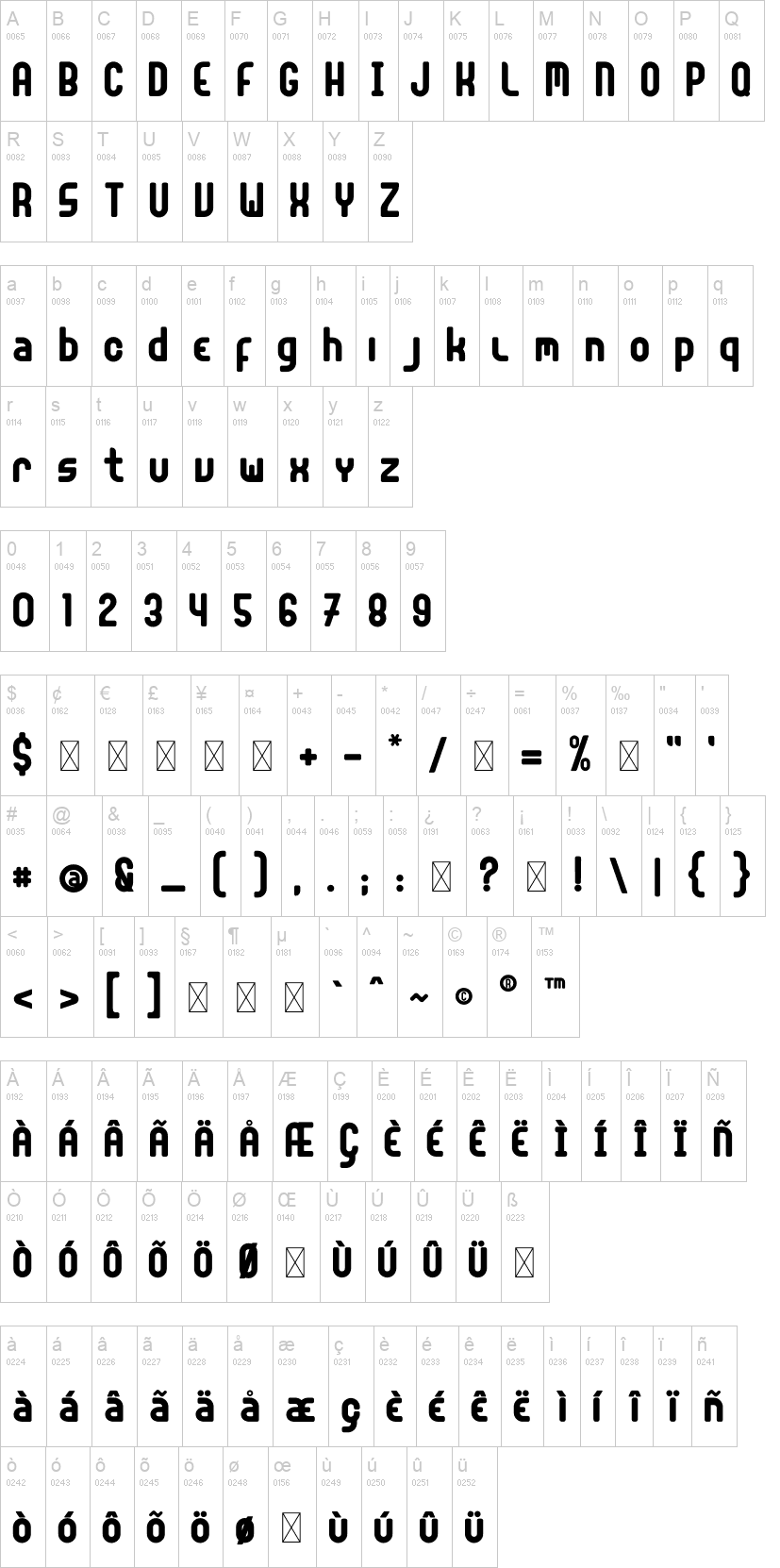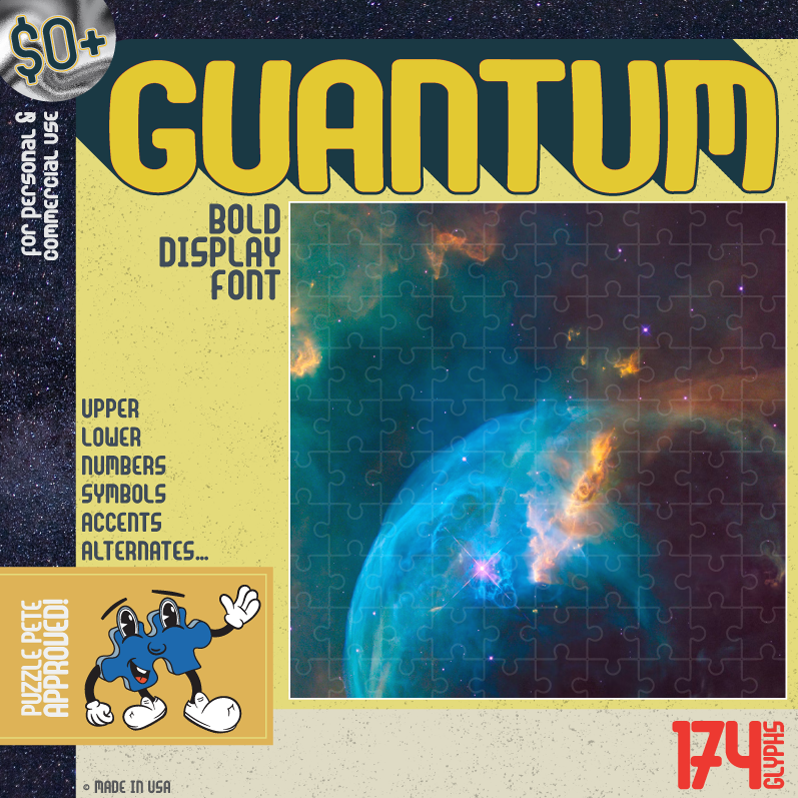
Note of the authorBold, compressed, rounded geo-sans. 174 total glyphs including alternates, numerals, latin accents and commonly-used symbols. Everything you'll need.